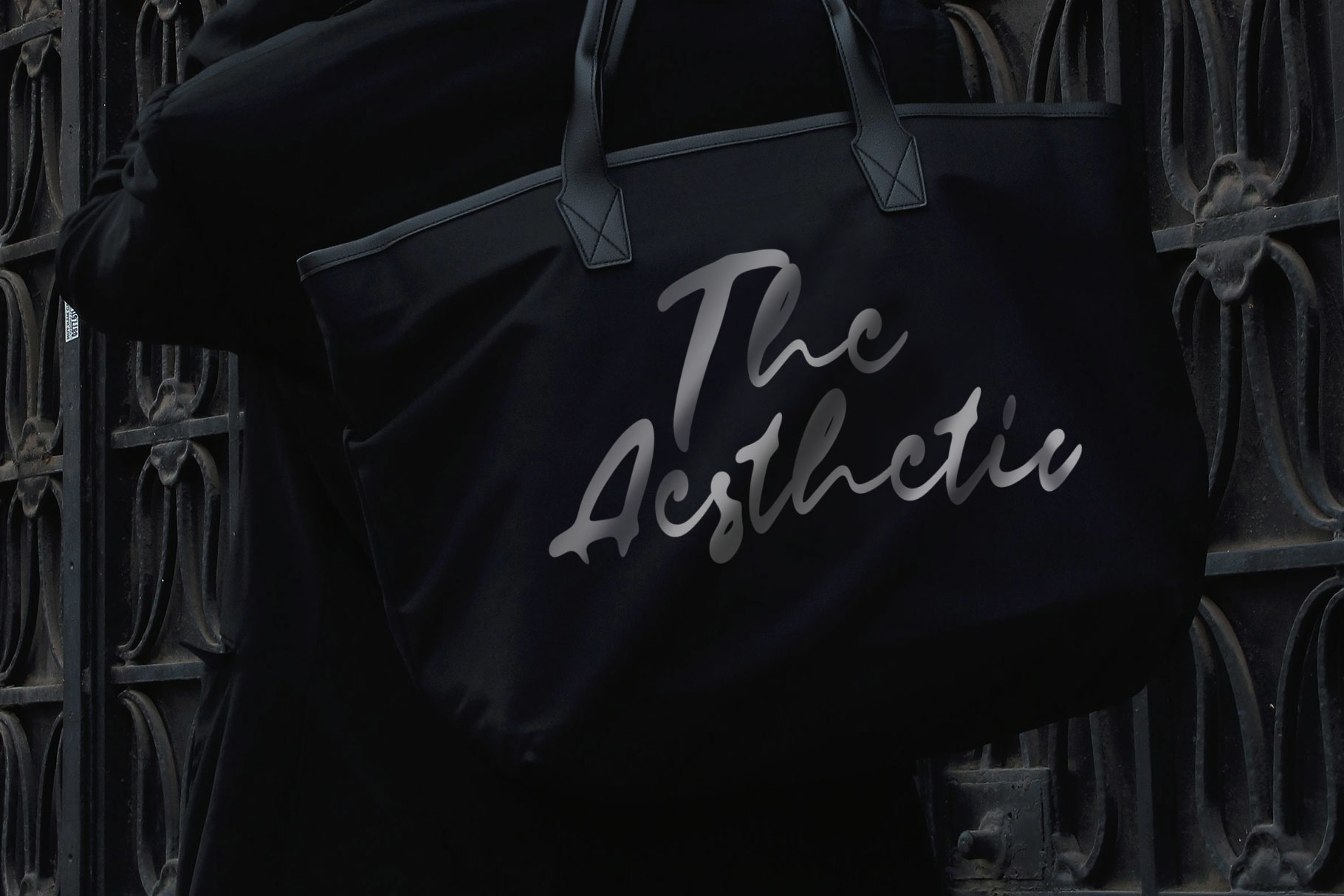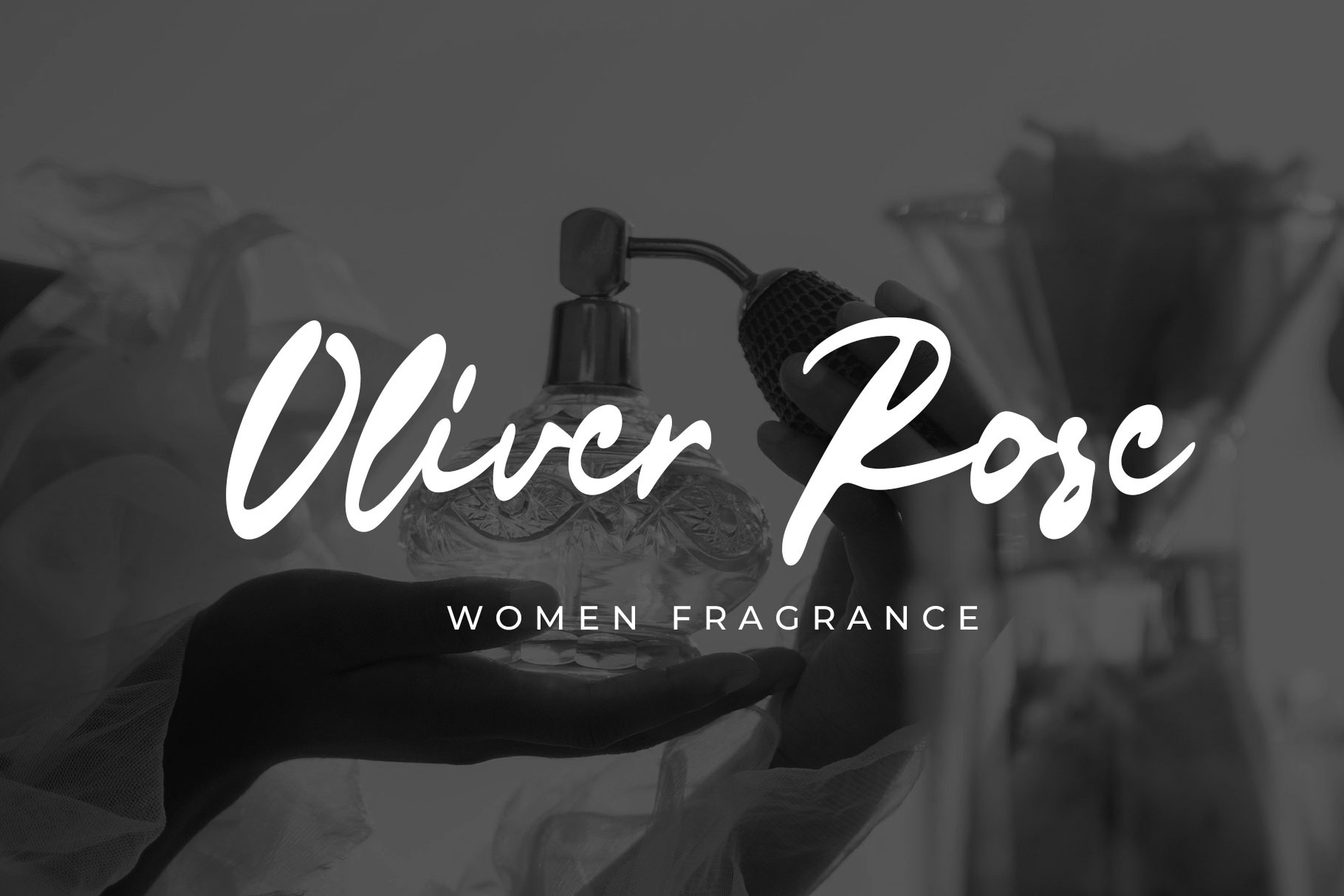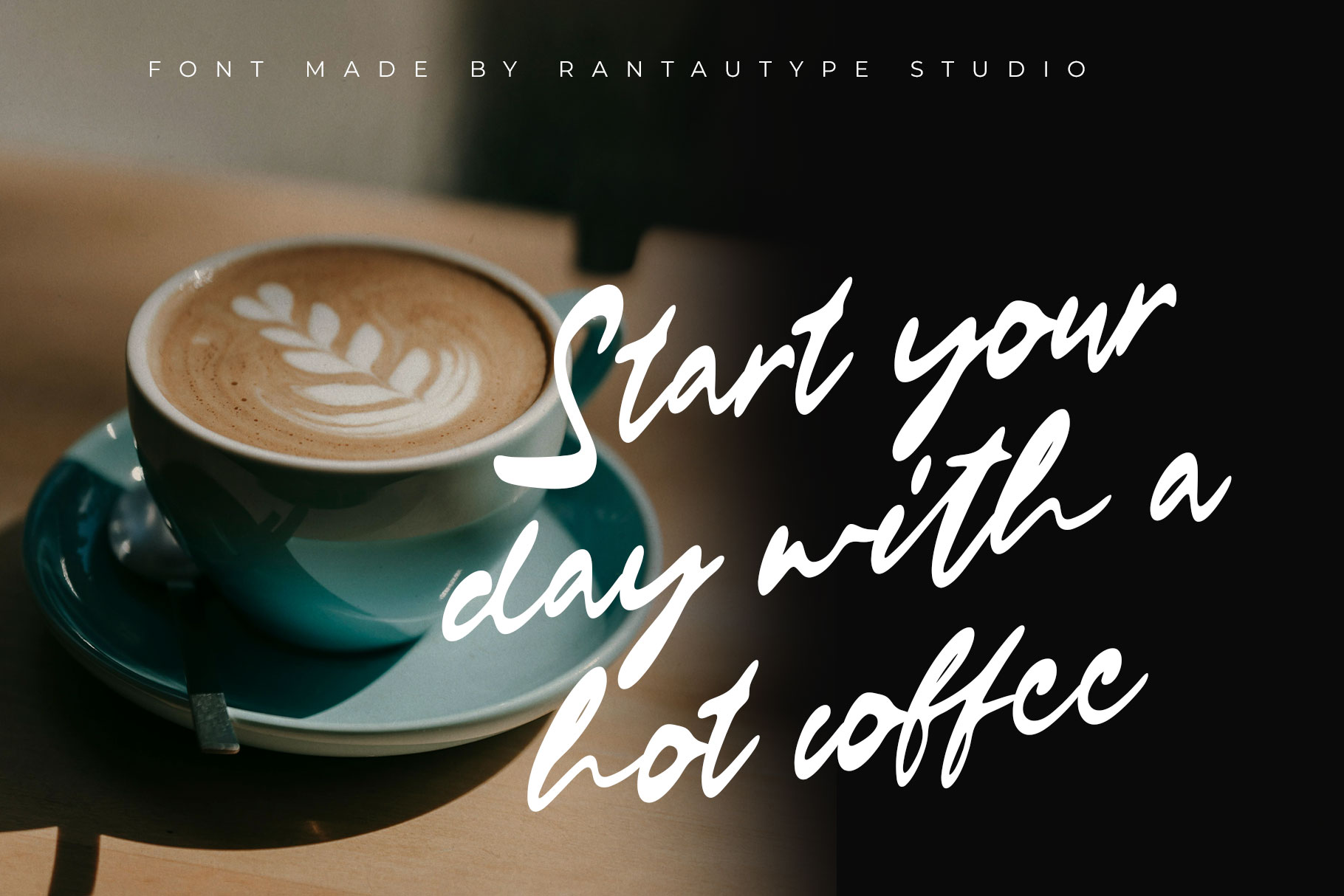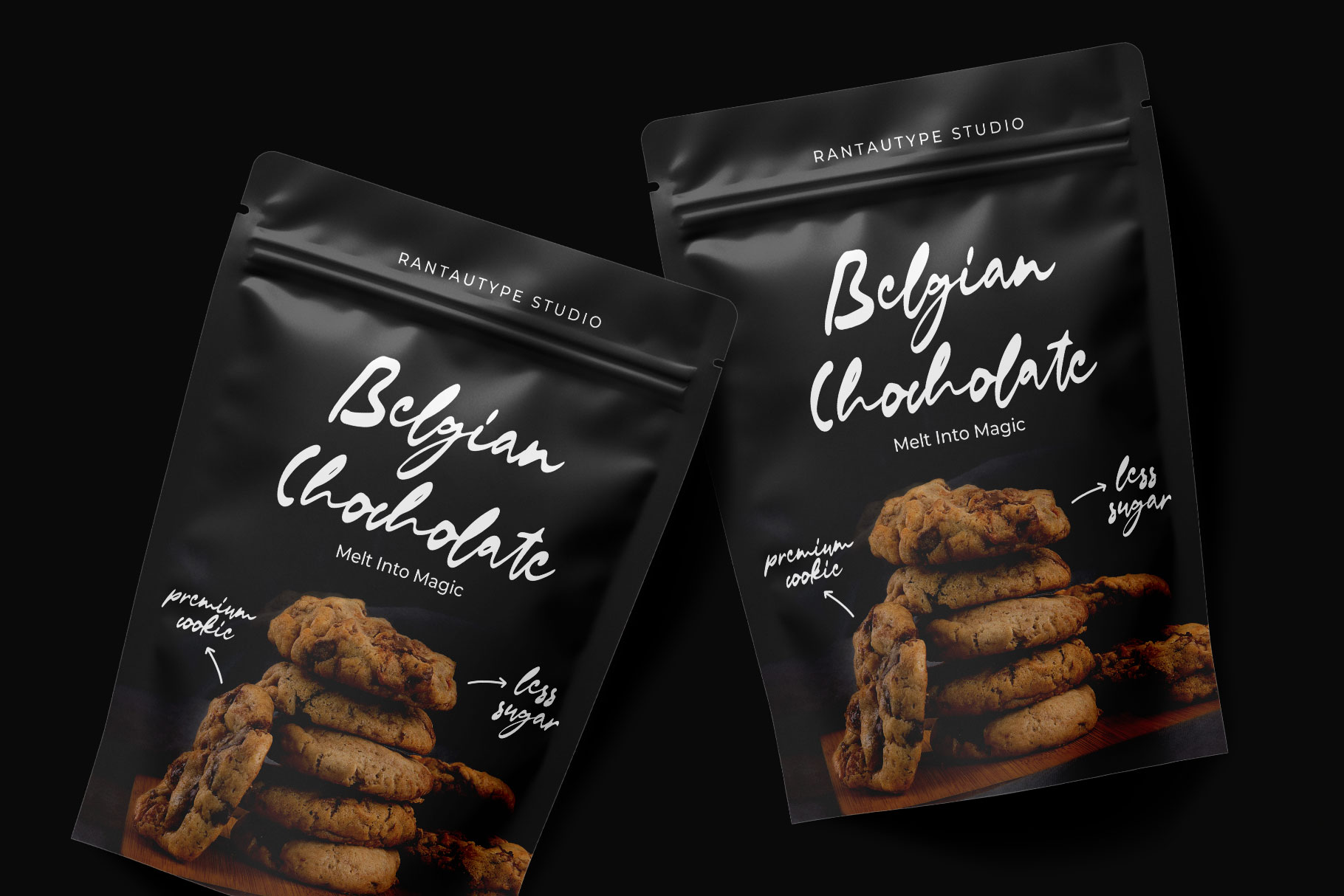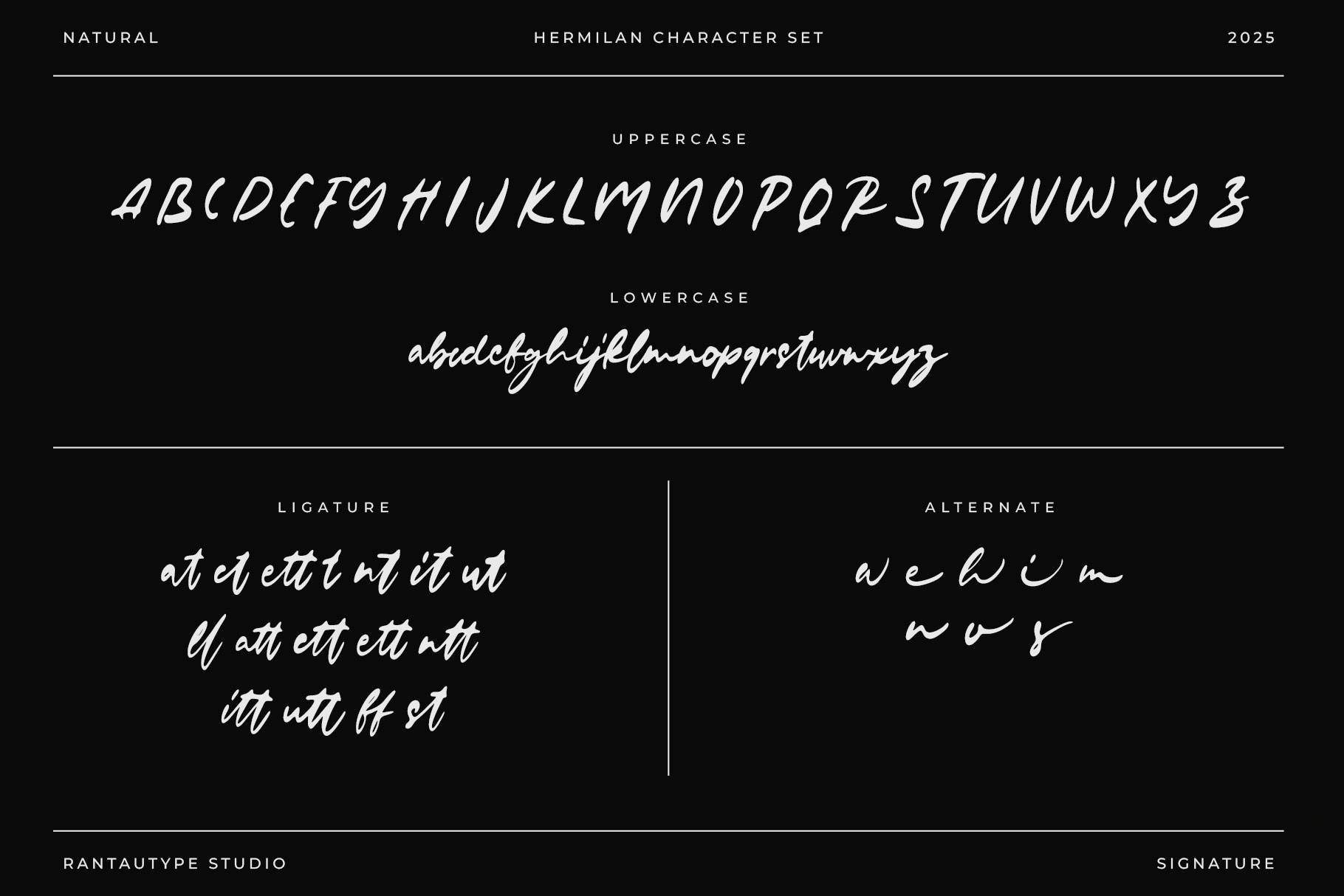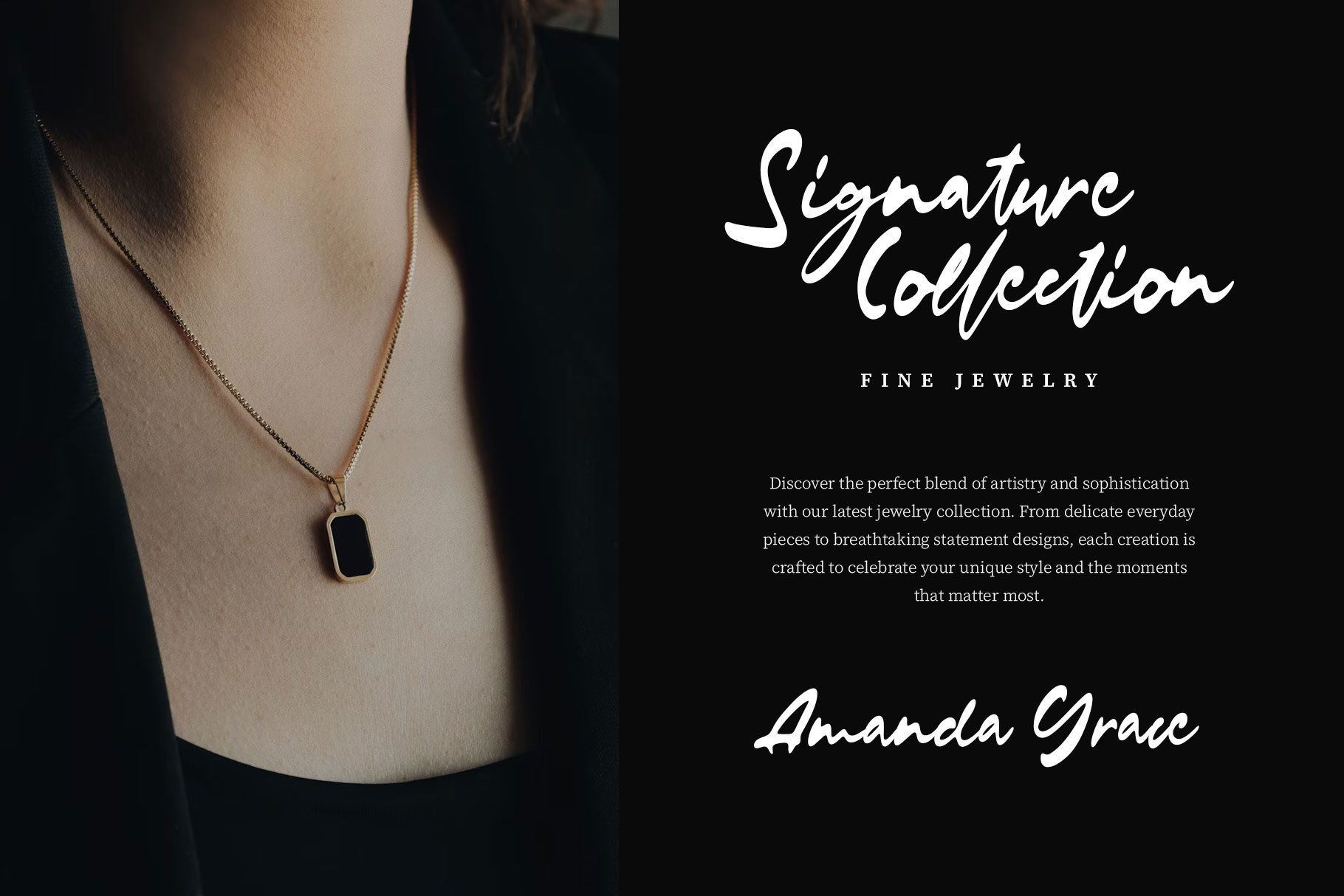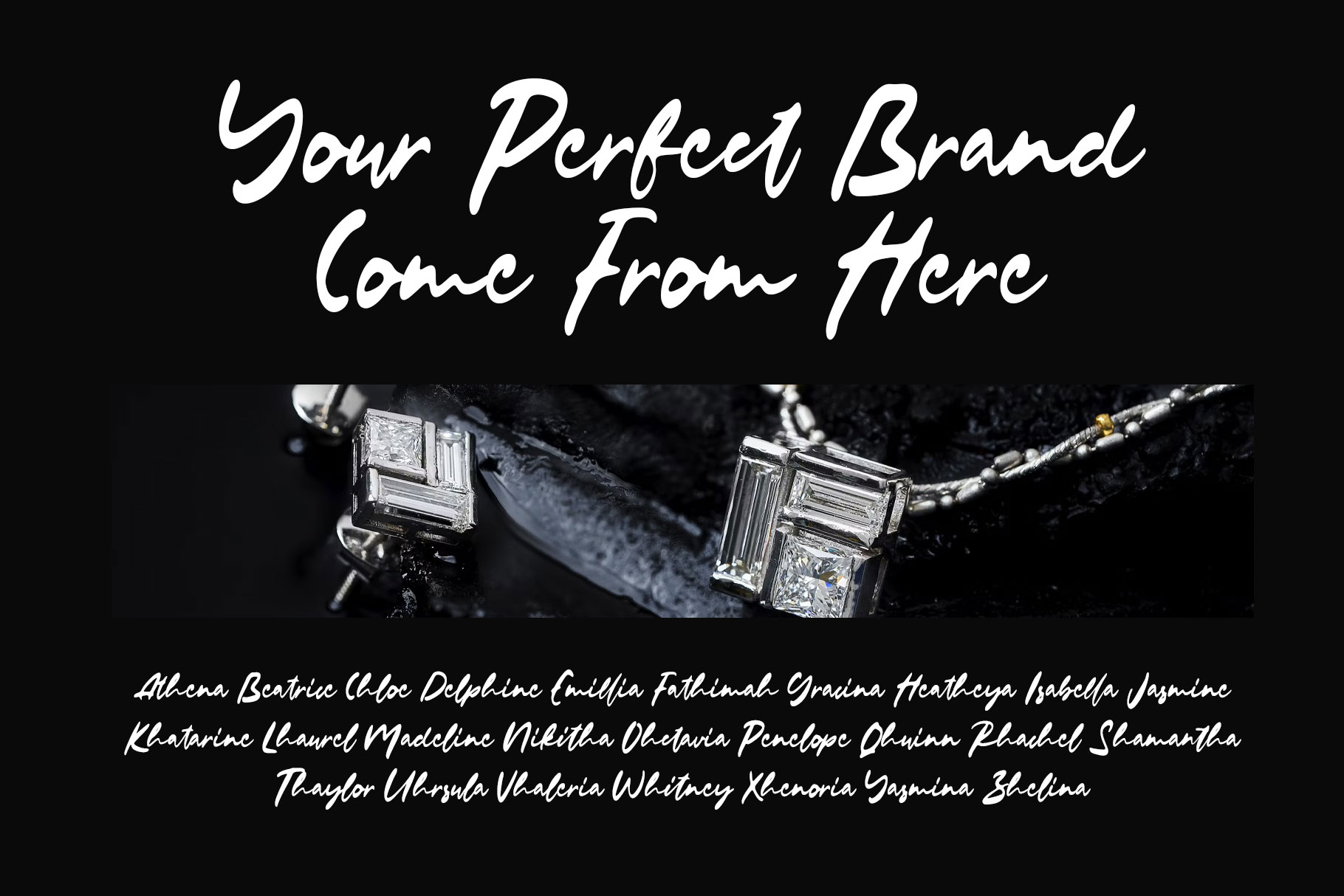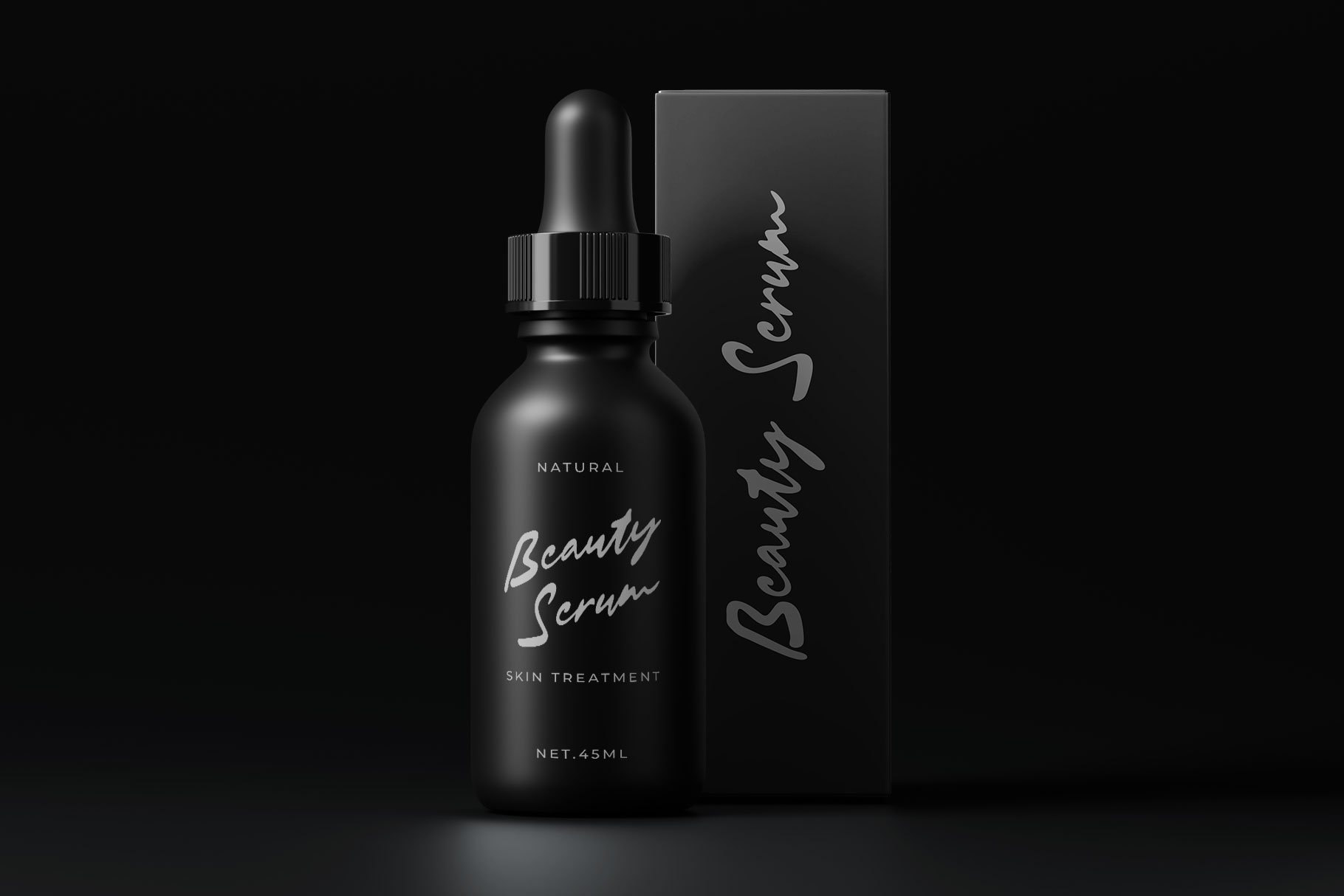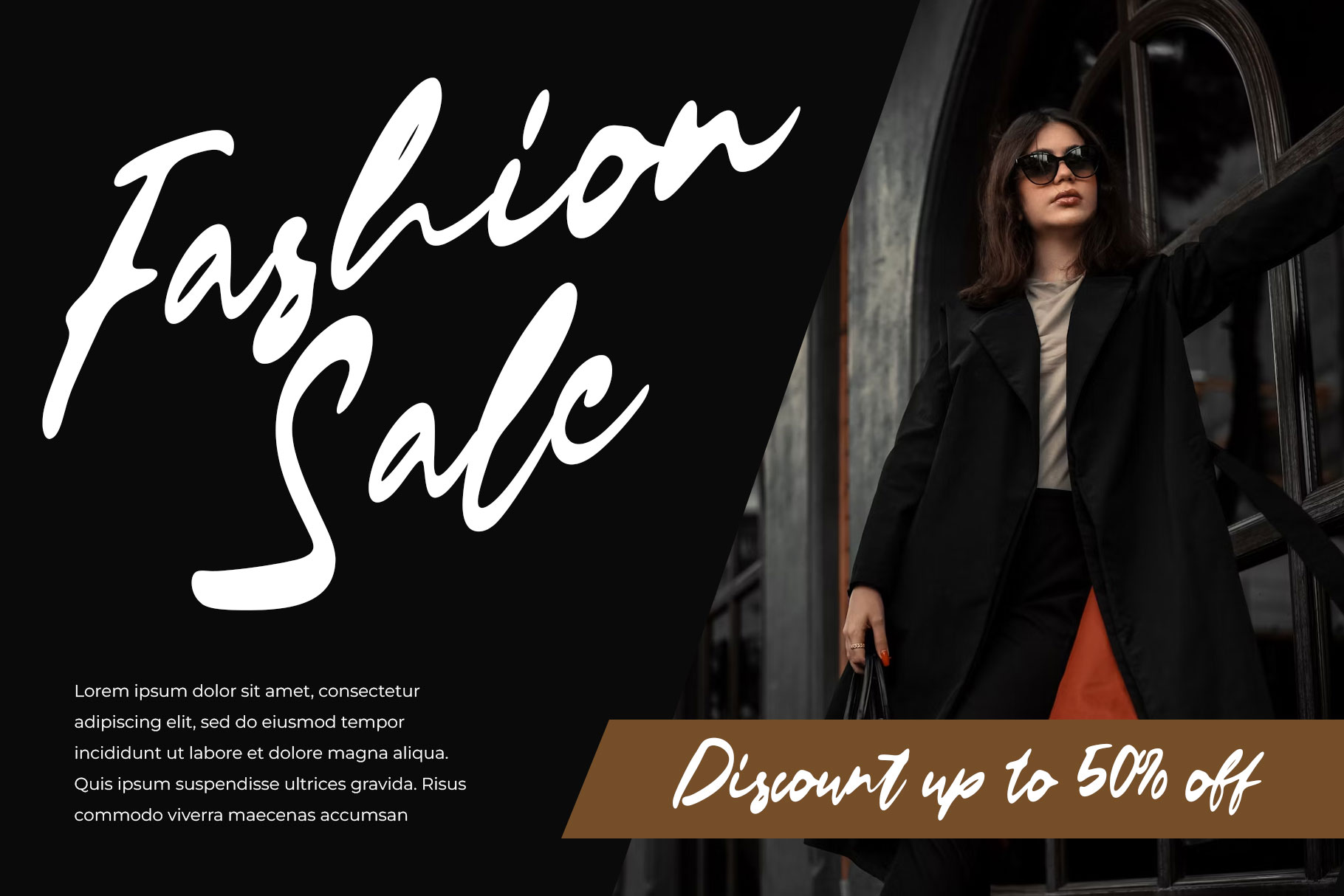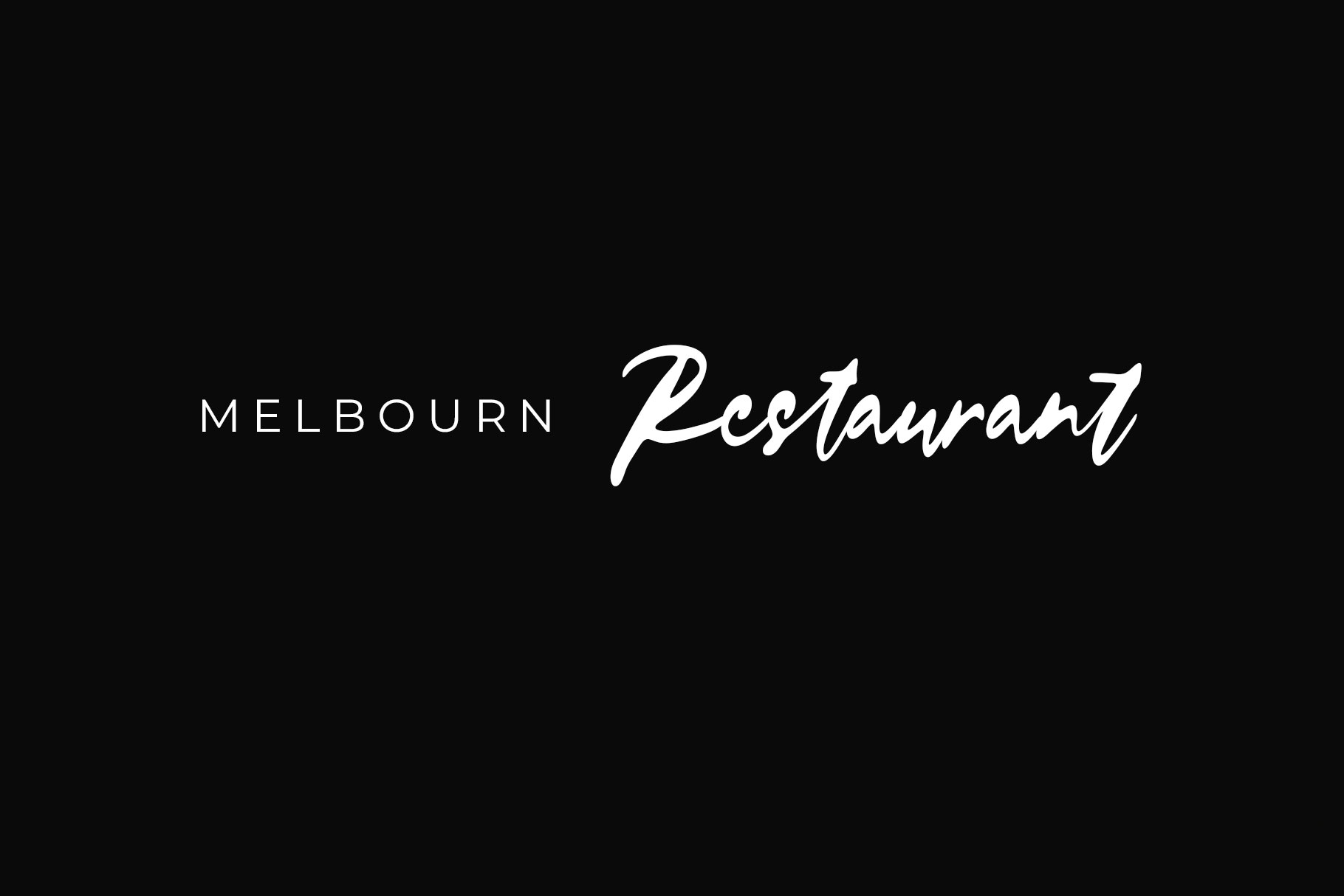
Hermilan Signature Font
Hermilan is signature font with natural hand lettering make it more different. Hermilan is a perfectly choice for any creative endeavor, creating, modern, lifestyle design such as logotype, title, cover, branding, invitations, wedding designs, display and magazine, social media posts, advertisements, printed quotes, product packaging, corporate brand, product designs, labels, photography, watermarks, special events and any other project with handwritten feel.